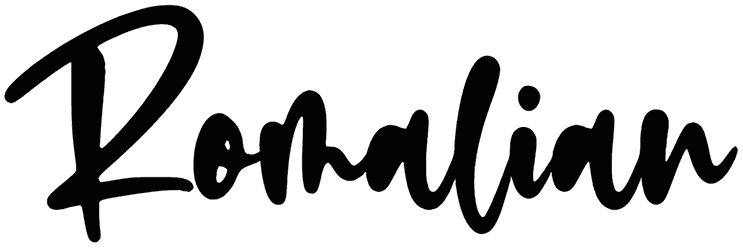
Romalian Font
Are you looking for a font to add a personal touch to your branding, logo design, or greeting cards? Romalian gives it a warmer yet professional style.
This marker font is designed so that even though it is illegible, it helps to create and convey a message with a sincere mood and can significantly impact your designs. So if you are looking for the best script font to create an ongoing project, don’t hesitate to add this font to your collection.